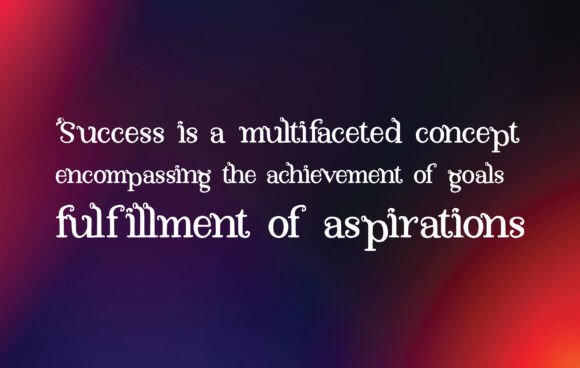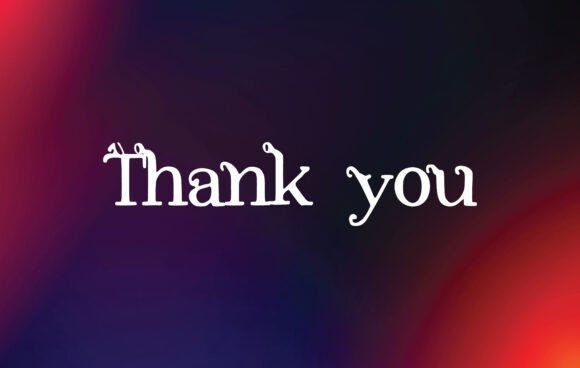
Discover the Elegance of Aron Font: Elevate Your Designs with this Lovely Serif Font
Are you a designer or crafter looking for a font that can take your creative ideas to the next level? Look no further than Aron Font, a beautiful serif font that is sure to impress. With its elegant and sophisticated design, Aron Font is the perfect choice for creating eye-catching logos, branding, and quotes that will leave a lasting impression.
The Characteristics of Aron Font
Aron Font is a serif font, which means it features small lines or flourishes at the ends of the letters. This gives the font a classic and timeless look that is perfect for designs that require a touch of elegance. The font is also highly legible, making it easy to read and understand, even at small sizes.
One of the standout features of Aron Font is its versatility. It can be used for a wide range of design projects, from logos and branding to quotes and social media graphics. The font is also highly customizable, allowing you to adjust the size, color, and style to suit your needs.
Why Choose Aron Font?
So why choose Aron Font over other fonts? Here are just a few reasons why this font stands out:
• Elegant Design: Aron Font has a sophisticated and elegant design that is sure to impress. The font features beautiful serifs and a classic look that is perfect for designs that require a touch of luxury.
• Highly Legible: Aron Font is highly legible, making it easy to read and understand, even at small sizes. This makes it perfect for designs that require a lot of text, such as quotes and social media graphics.
• Versatile: Aron Font is highly versatile and can be used for a wide range of design projects, from logos and branding to quotes and social media graphics.
• Customizable: Aron Font is highly customizable, allowing you to adjust the size, color, and style to suit your needs.
How to Use Aron Font in Your Designs
Aron Font is easy to use in your designs, and can be incorporated into a variety of projects. Here are a few ideas to get you started:
• Logos and Branding: Aron Font is perfect for creating eye-catching logos and branding materials. The font’s elegant design and high legibility make it ideal for use in business cards, letterheads, and other marketing materials.
• Quotes and Social Media Graphics: Aron Font is also great for creating quotes and social media graphics. The font’s classic look and high legibility make it perfect for use in inspirational quotes, motivational posters, and other social media graphics.
• Packaging and Advertising: Aron Font can also be used in packaging and advertising materials, such as brochures, flyers, and billboards. The font’s elegant design and high legibility make it perfect for use in a variety of marketing materials.
Tips for Getting the Most Out of Aron Font
Here are a few tips for getting the most out of Aron Font:
• Experiment with Different Sizes and Colors: Aron Font is highly customizable, so don’t be afraid to experiment with different sizes and colors. Try using the font in different sizes and colors to create visual interest and add emphasis to your designs.
• Use Aron Font in Combination with Other Fonts: Aron Font can be used in combination with other fonts to create a unique and visually appealing design. Try pairing Aron Font with a sans-serif font for a bold and modern look.
• Pay Attention to Kerning and Leading: Kerning and leading are important aspects of typography that can make or break a design. Make sure to pay attention to the kerning and leading of your text to ensure that it is easy to read and visually appealing.
Aron Font is a beautiful serif font that is sure to elevate your designs to the next level. With its elegant design, high legibility, and versatility, Aron Font is the perfect choice for creating eye-catching logos, branding, and quotes. Whether you’re a designer or crafter, Aron Font is a great addition to your font library.